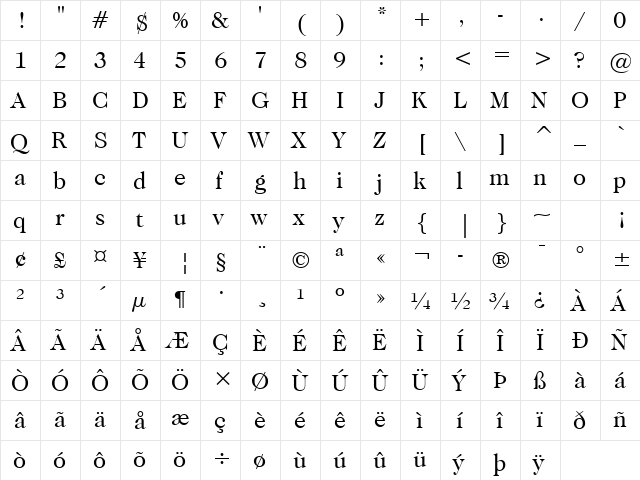
Caslon224 Bk BT Book Font Preview
Caslon224 Bk BT Book
Design Context for Caslon224 Bk BT Typeface
Caslon224 Bk BT takes a measured approach to typography — its balanced proportions and neutral character make it a reliable workhorse for both digital and print work.